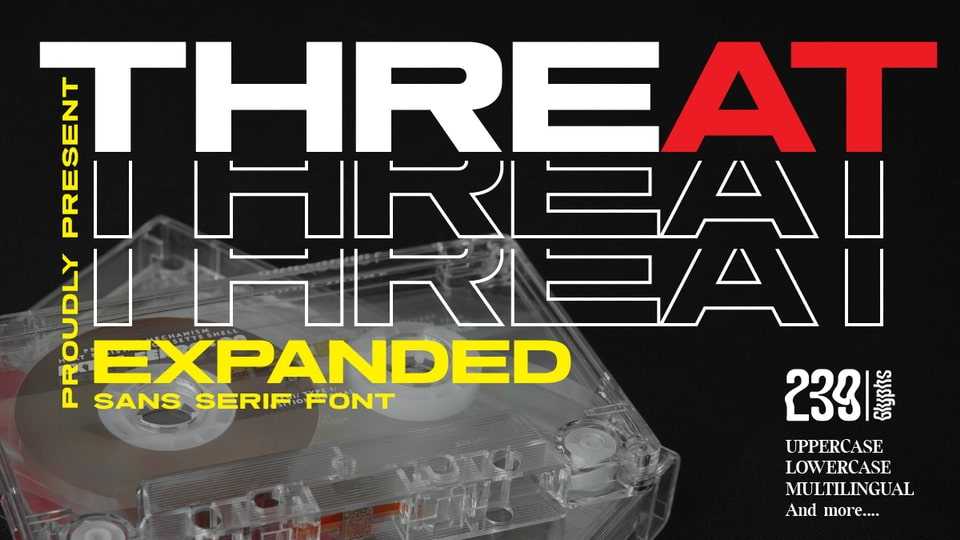
Download Threat font, an all caps typeface that has a very bold body, but still has high contrast. Threat font looks very modern when paired with contrasting design colors.